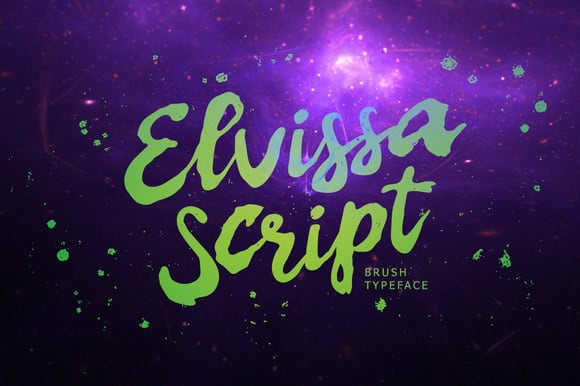
elvissa
Explore the Modern Elegance of Elvissa Font
Elvissa, crafted by renowned designer Alex Smith in 2023, is a stylish modern sans serif font that blends functionality with elegance. Perfect for web design, branding, and diverse print projects, Elvissa’s clean lines and unique character shapes make it a versatile choice that maintains readability across various contexts.
The Creative Journey of Elvissa Font
Drawing inspiration from contemporary design trends, Elvissa was developed with the intention to offer a refreshing alternative to traditional serif fonts. Designer Alex Smith infused this font with a spirit of modernity while ensuring each character reflects clarity and precision, making it suitable for both headlines and body text.
Elvissa’s Ideal Use Cases
Elvissa is particularly well-suited for a range of applications including corporate branding, website interfaces, product packaging, and promotional materials. Its modern aesthetic makes it an excellent choice for creatives looking to convey a sense of innovation and style, while its legibility ensures it performs well in both large and small sizes.